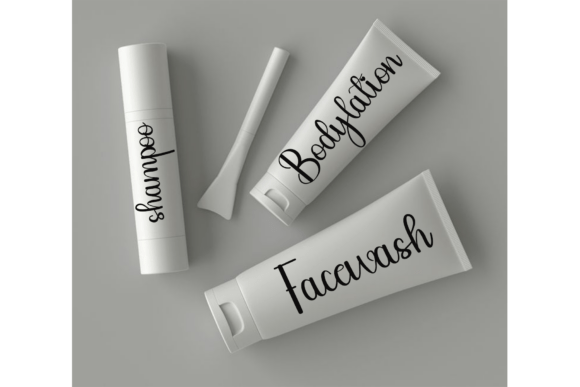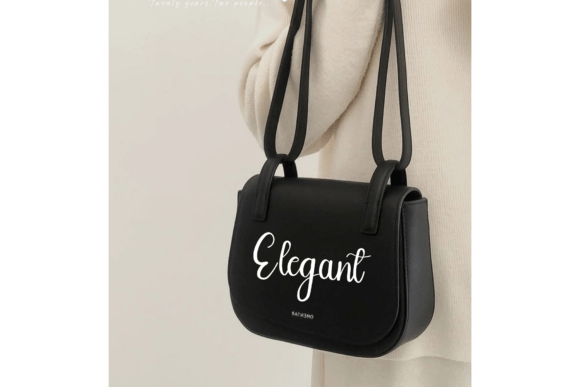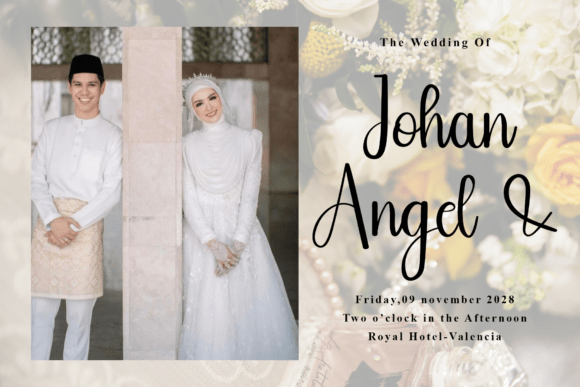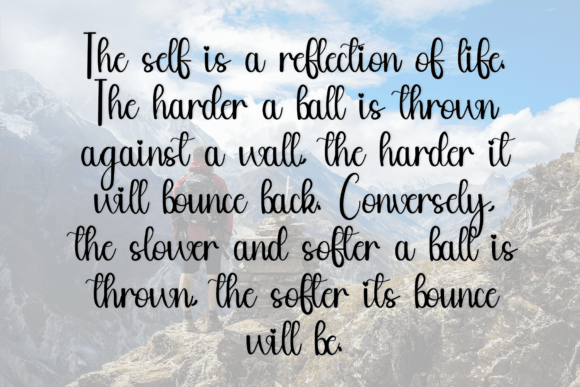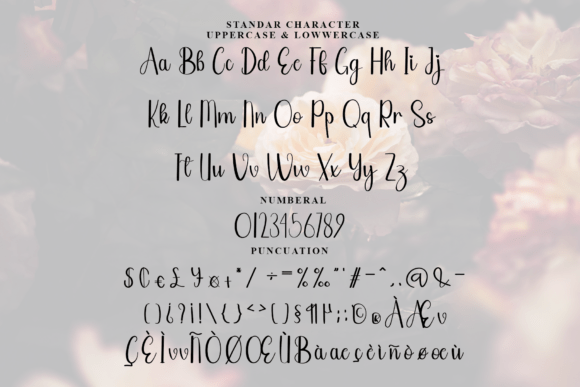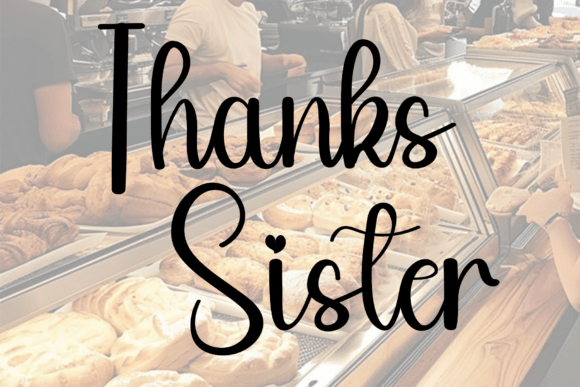
Bakery Font: Adding a Personal Touch to Your Designs
In the world of typography, fonts play a crucial role in conveying the tone and personality of a brand or design. For designers and crafters looking for a font that exudes warmth and approachability, Bakery Font is an excellent choice. This casual handwritten font is designed to capture the charm of authentic handwriting with a modern twist, making it perfect for a wide range of design applications.
The Characteristics of Bakery Font
Bakery Font is characterized by its smooth strokes, natural curves, and easy-flowing letterforms. These features come together to create a font that radiates warmth and personality, making it ideal for designs that require a personal touch. The font’s effortless style and versatile character ensure that it can be used in various contexts, from quotes and invitations to branding and social media posts.
Why Choose Bakery Font?
There are several reasons why designers and crafters should consider Bakery Font for their projects:
- Warmth and Personality: Bakery Font has a unique ability to convey warmth and personality, making it perfect for designs that require a human touch.
- Readability: The font’s smooth strokes and easy-flowing letterforms ensure that it is highly readable, even at smaller sizes.
- Versatility: Bakery Font can be used in a wide range of design applications, from digital media to print materials.
- Modern and Approachable: The font’s modern design and approachable feel make it perfect for brands and designers looking to connect with their audience on a personal level.
Perfect for Quotes, Invitations, and Branding
Bakery Font is particularly well-suited for designs that require a personal and friendly touch. Here are some examples of how the font can be used:
- Quotes: Add a personal touch to inspirational quotes, making them perfect for social media posts, posters, and flyers.
- Invitations: Use Bakery Font to create warm and inviting invitations for weddings, parties, and other special events.
- Branding: Incorporate the font into your brand’s visual identity to convey a sense of approachability and friendliness.
- Social Media Posts: Use Bakery Font to create engaging and personalized social media posts that connect with your audience.
Tips for Using Bakery Font Effectively
To get the most out of Bakery Font, here are some tips to keep in mind:
- Pair with Other Fonts: Experiment with pairing Bakery Font with other fonts to create a unique and visually appealing design.
- Use in Combination with Images: Combine the font with high-quality images to create a design that is both visually appealing and engaging.
- Experiment with Colors: Try out different color combinations to find the perfect match for your design.
Bakery Font is a versatile and charming font that can add a personal touch to any design. With its smooth strokes, natural curves, and easy-flowing letterforms, it is perfect for designers and crafters looking to create warm and inviting designs. Whether you’re working on a quote, invitation, branding project, or social media post, Bakery Font is an excellent choice.